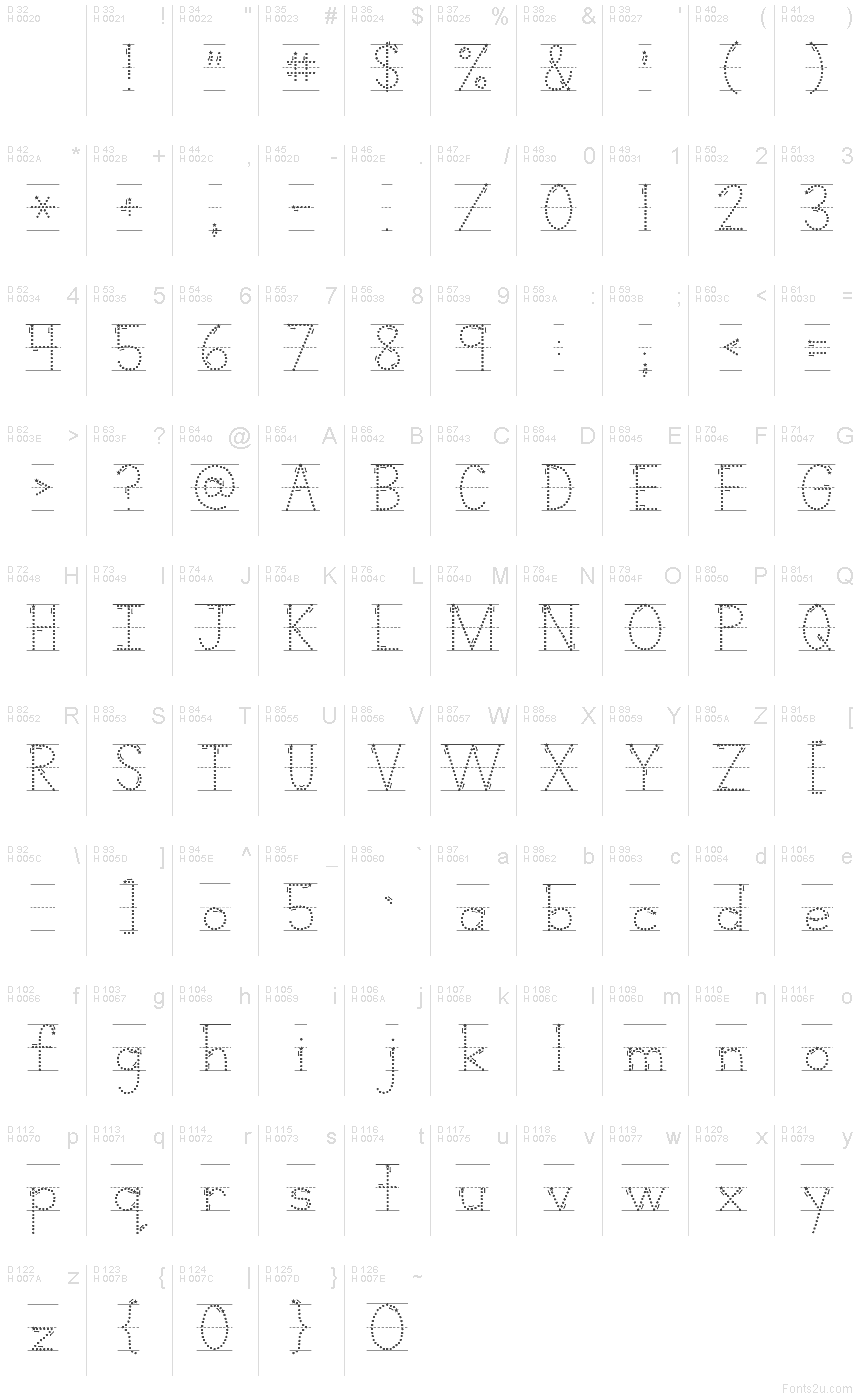
KG Teacher Created Star Lined
KG Teacher Created Star Lined font by Kimberly Geswein is a free school script typeface. Part of the KG Teacher Created family, it tackles the classic handwriting-practice headache with dotted strokes, built-in handwriting lines, and tiny star cues that show where to start each letter. The texture feels softly penciled—light enough to invite tracing, crisp enough to keep spacing tidy.
Using KG Teacher Created Star Lined, you can whip up handwriting worksheets, tracing cards, name tags, interactive notebooks, classroom posters, and homeschooling printables in minutes. The steady rhythm and clear stroke paths help learners focus on letter shape and size without visual clutter. This free font pairs nicely with a simple sans-serif for instructions—set the notes solid, keep the trace lines dotted.